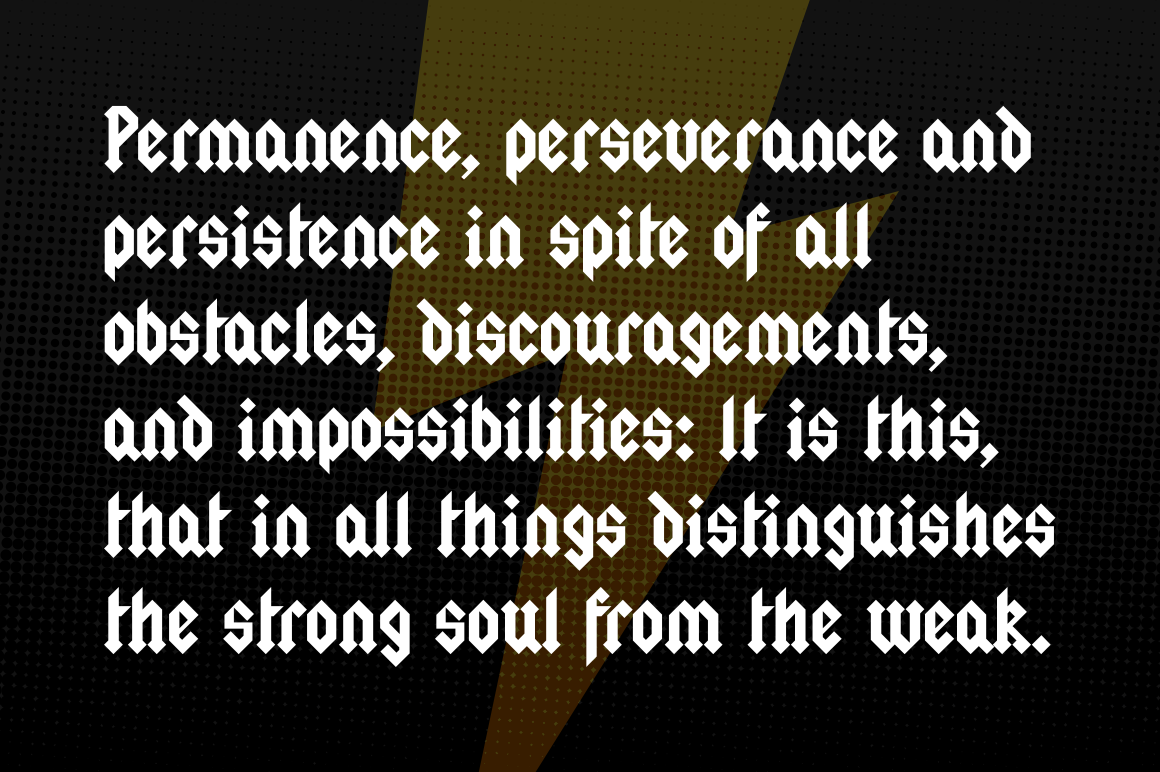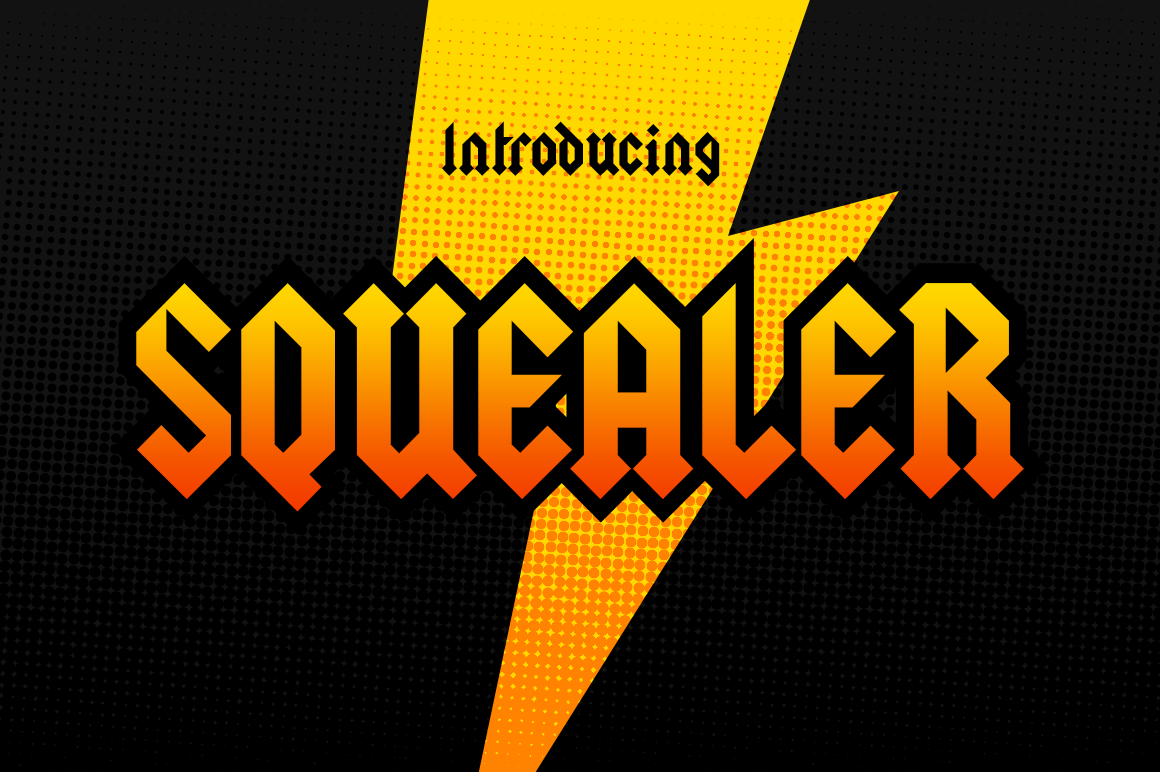
HomePersonal Use FreeSquealer Personal Use Free Squealer FacebookTwitterPinterestWhatsApp 1 of 2 About Squealer Font Squealer is a hard-rock black letter headliner, perfect for edgy displays. DOWNLOAD NOW People also explored Yesterday Font Reprizo Font Block Koredor Font Magister Script Font Dandeline Font Solange Font Sianok Valley Font Black Bones Font Romantic Font 200 0 TagsSquealer Font Previous articleScoothlaneNext articleAiland LEAVE A REPLY Cancel reply Comment: Please enter your comment! Name:* Please enter your name here Email:* You have entered an incorrect email address! Please enter your email address here Website: Save my name, email, and website in this browser for the next time I comment. Personal Use Free Single Sleeve Personal Use Free Read more about this font Carved Wood Personal Use Free Read more about this font Love Ya Personal Use Free Read more about this font Peristiwa Font Personal Use Free Read more about this font BLOG Top 7 Google Fonts Alternatives for Faster and Privacy-Friendly Web Design (2025) Top 7 Google Fonts Alternatives for Faster and Privacy-Friendly Web Design (2025) When it comes to web typography, Google Fonts has long been the go-to... Best Fonts for YouTube Videos: Make Your Thumbnails Stand Out To increase your work productivity, choose the most readable fonts. Free Fonts Risk: Why Free Fonts Can Be Dangerous for Designers